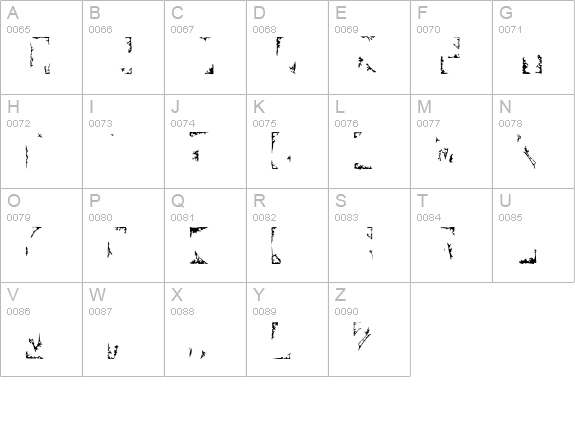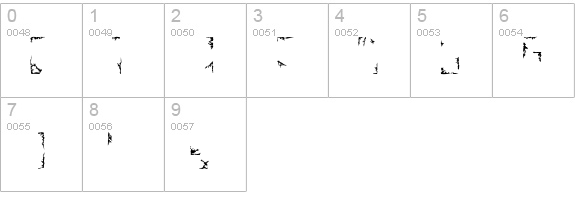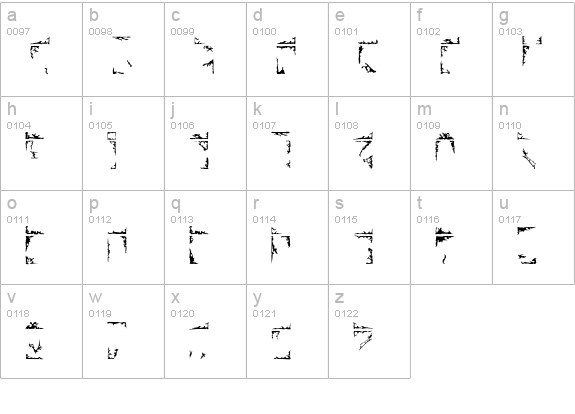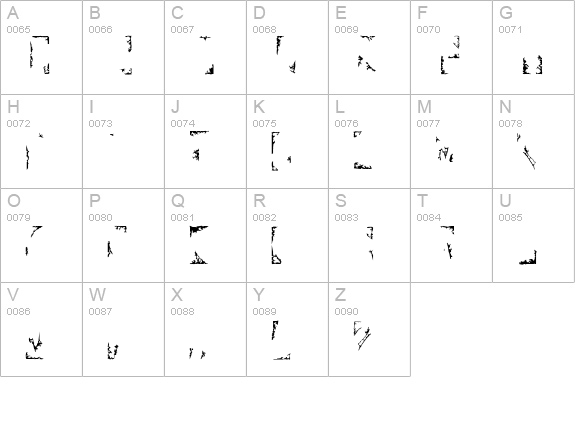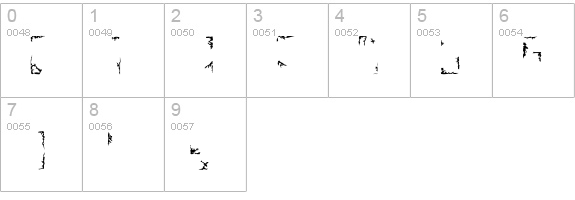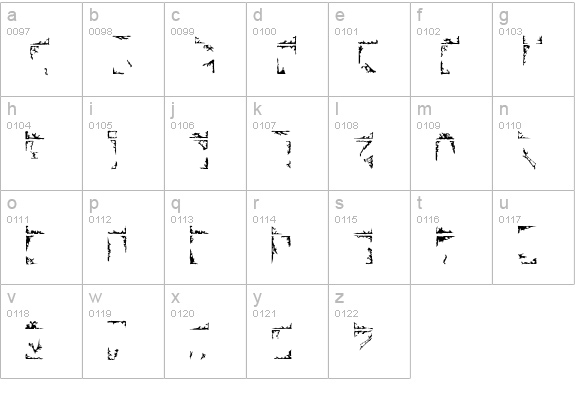
Stoned-Scratches font is a unique and eye-catching typeface that combines rugged edges with a hand-drawn aesthetic. The font features bold strokes and intricate details that give it a distinct and edgy look. Perfect for adding a touch of grunge and personality to your designs, Stoned-Scratches font exudes a rebellious and artistic vibe. What sets Stoned-Scratches font apart is its versatility - it can be used for a variety of design projects, from posters and album covers to logos and branding materials. Whether you're going for a vintage-inspired look or a contemporary feel, this font is sure to make a statement. The best part? Stoned-Scratches font is completely free to download at FontsMarket.com. Simply head over to the website and grab your copy today to add a touch of creativity and flair to your designs. Don't miss out on this amazing opportunity to elevate your projects with the captivating Stoned-Scratches font!